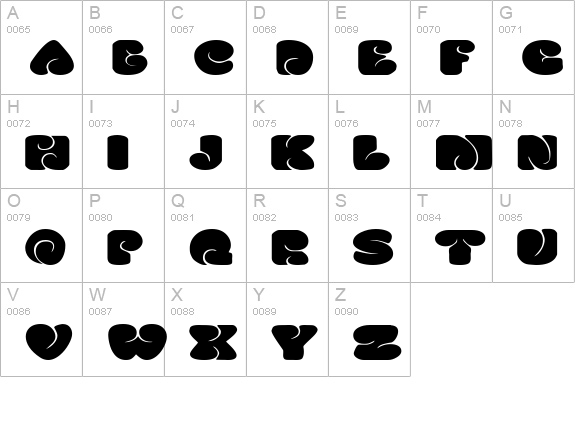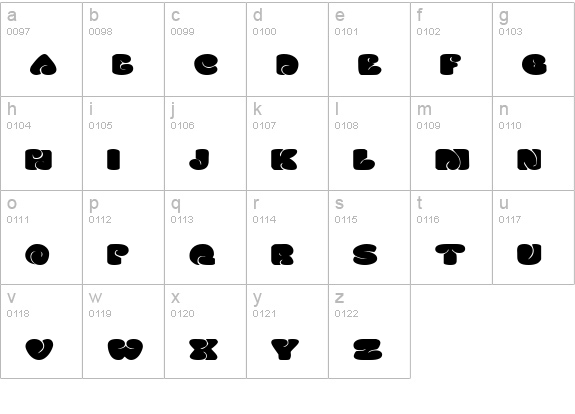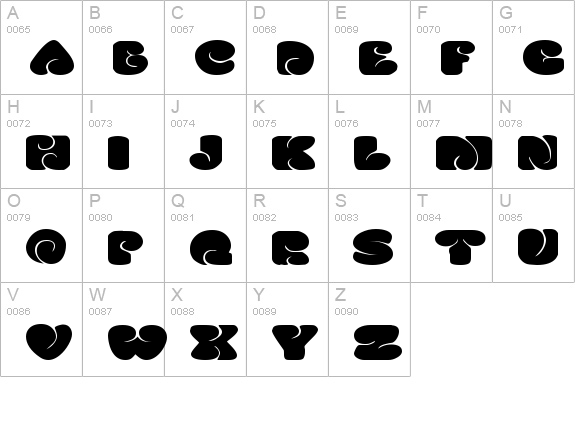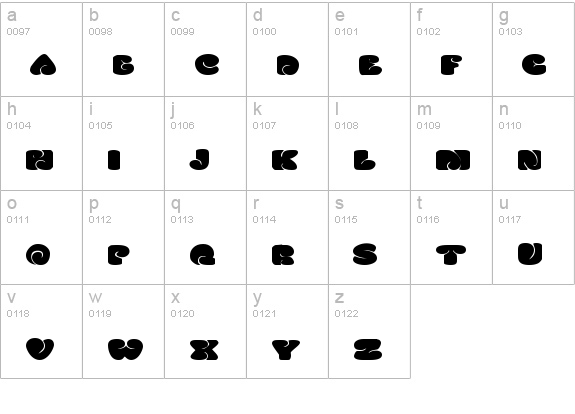
SixtiesVibeExtended Font Details
Introducing SixtiesVibeExtended font - a nostalgic and groovy typeface that effortlessly captures the essence of the 1960s. With its bold lines, fluid curves, and vibrant energy, this font takes you back to the era of peace, love, and rock 'n' roll. Designed to evoke the spirit of the swinging sixties, SixtiesVibeExtended is the perfect choice for projects seeking a retro aesthetic. Whether you're designing posters, album covers, or branding materials, this font will infuse your work with a sense of nostalgia and a touch of rebelliousness. What sets SixtiesVibeExtended font apart is not just its stylish design but also its availability - it's completely free to download at FontsMarket.com. We believe that creativity should be accessible to all, and by offering this font for free, we hope to inspire designers and enthusiasts alike to explore the limitless possibilities of the sixties aesthetic. With its extended character set, SixtiesVibeExtended font offers versatility and flexibility in your designs. It supports multiple languages, making it suitable for a wide range of projects, from global advertising campaigns to local events and everything in between. Let SixtiesVibeExtended font transport you to a time of peace signs, flower power, and psychedelic colors. Embrace the free-spirited vibes and let your creativity run wild. Download SixtiesVibeExtended font today from FontsMarket.com and embark on a journey through time, where the spirit of the sixties lives on.